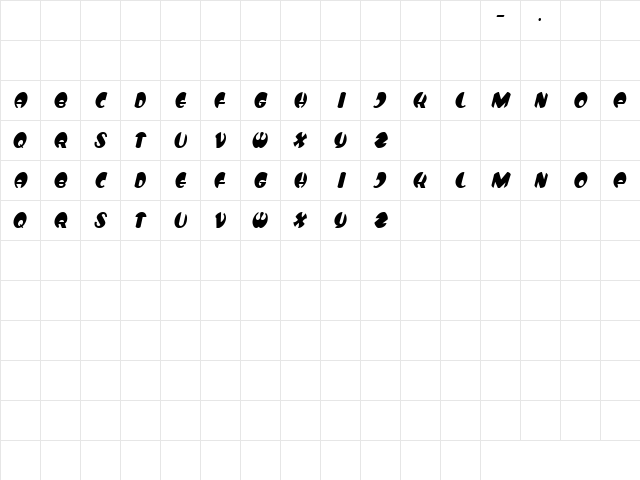
CA CasinoStardust Regular
Design Context for CA CasinoStardust
CA CasinoStardust is a composed and adaptable typeface that performs quietly and consistently across a wide range of design contexts.